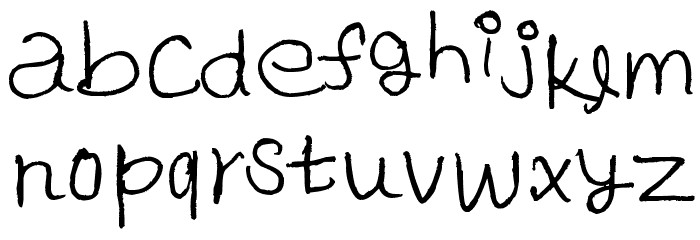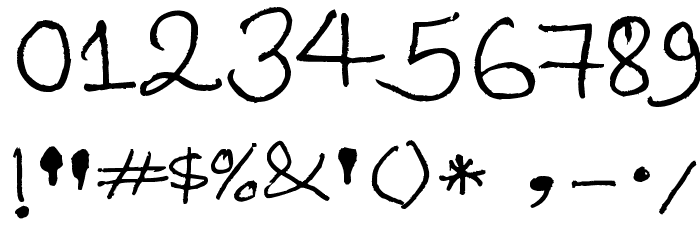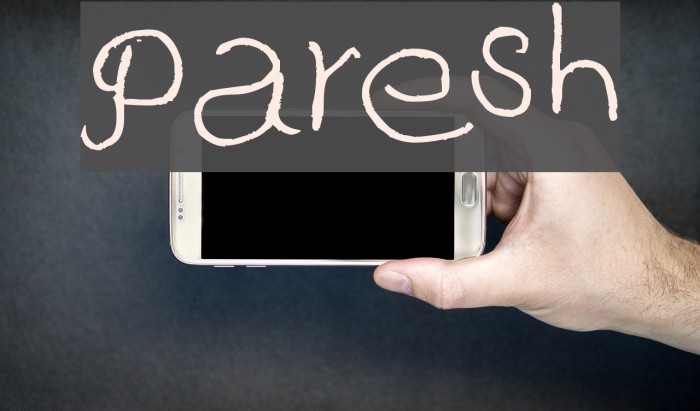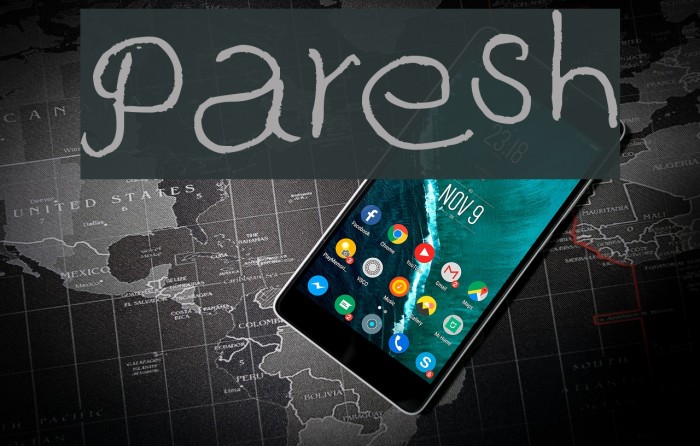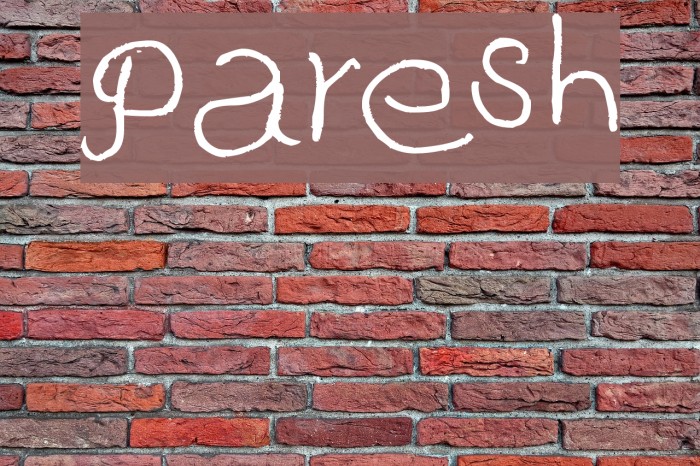
Paresh Font
This font features a playful and whimsical handwritten style, characterized by its irregular and organic letterforms. The strokes are uneven, giving it a casual and informal appearance. The uppercase letters are bold and prominent, while the lowercase letters maintain a consistent flow, adding to the font's charm. Numbers and special characters follow the same playful design, making it versatile for various uses. The overall look is reminiscent of a child's handwriting, making it suitable for creative and fun projects.
A playful, whimsical handwritten font with irregular strokes.
- Proposed Projects: Ideal for children's books, greeting cards, playful branding, and creative posters.
- Category: Handwritten
- Overall Style: Casual
- Use Case: Headlines, Creative projects, Informal text